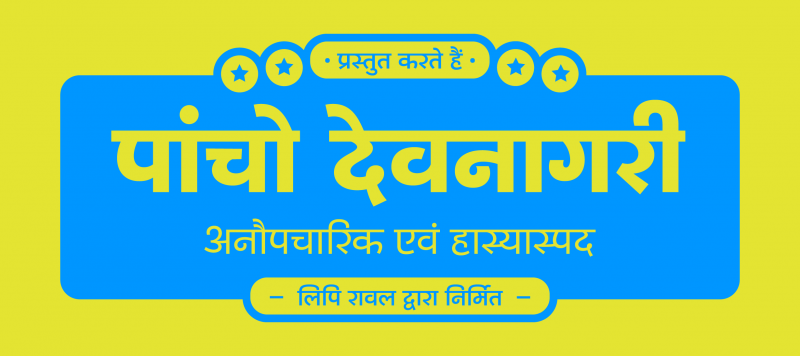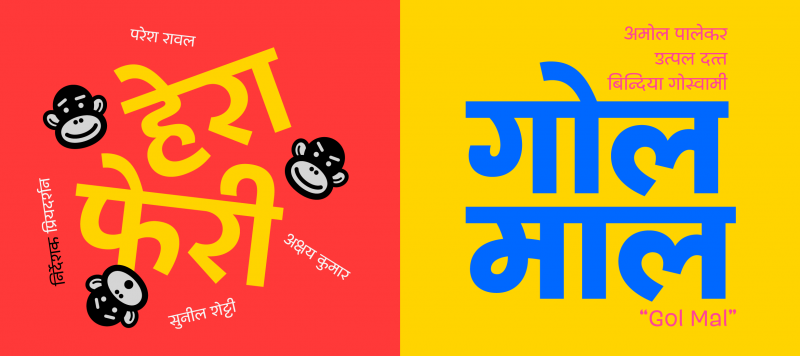
Pancho Devanagari is a very informal sans serif family, bringing some comic relief to our library. The family includes five styles, and each font has 750 glyphs. Designed by Lipi Raval, it matches our Pancho Latin family, from Shiva Nallaperumal. Like Pancho Latin, Pancho Devanagari pays some tribute to the work of Roger Excoffon; there is a lot of top-heaviness of many of Pancho’s characters. Many characters are extremely simplified, and have forms that seem inspired by everyday handwriting. Pancho Devanagari has rather short matras and ukars in comparison with its base characters’ height.
Family Name | Pancho Devanagari |
Designer(s) | Lipi Raval |
Classification | Sans, Display |